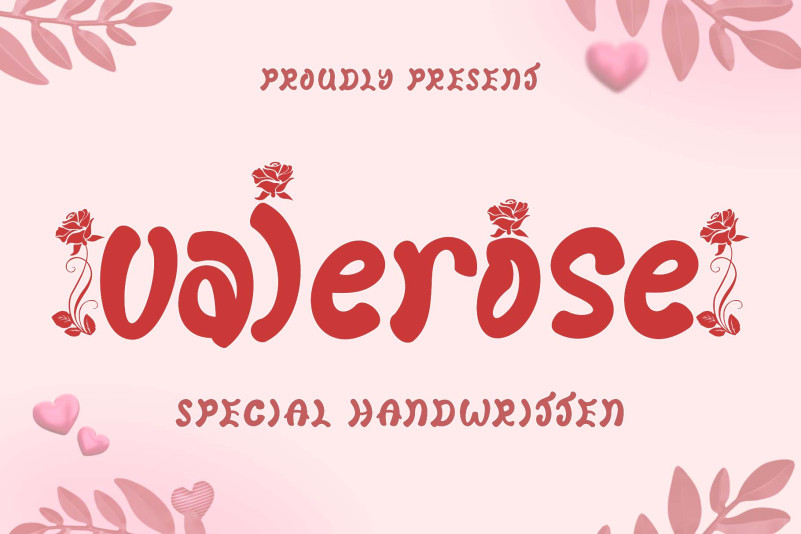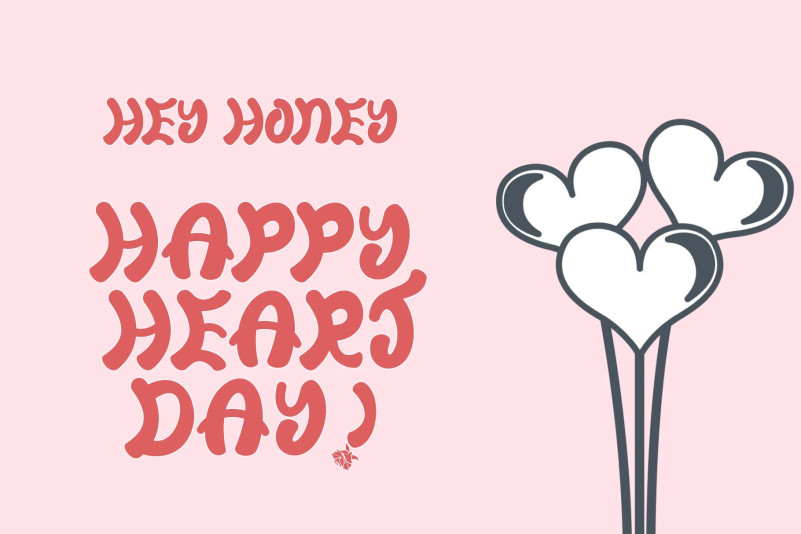
Valerose Font
Valerose Display Font is a very unique and elegant handwritten display font. This font is decorated with roses in alternate letters, leaving you speechless with the results. This font is PUA encoded which means you can access all the lovely glyphs and swashes effortlessly!